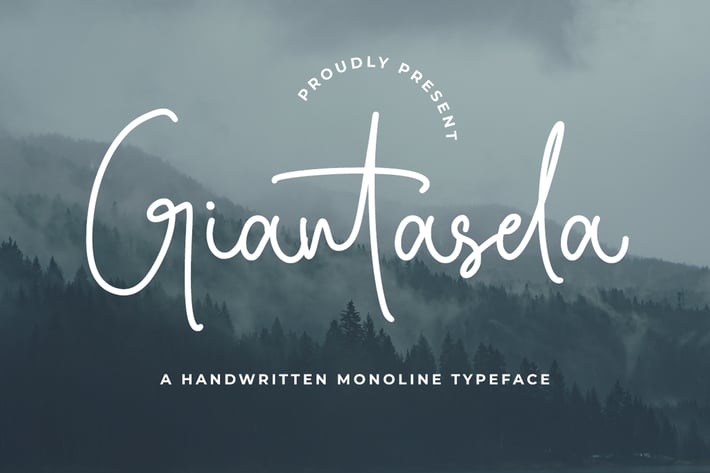
Giantasela - Monoline Font
Giantasela is a beautiful light handwritten font with a unique feel and a stunning impact. It will add a luxury spark to any design project that you wish to create!
Ligatures, Swash, Alternates